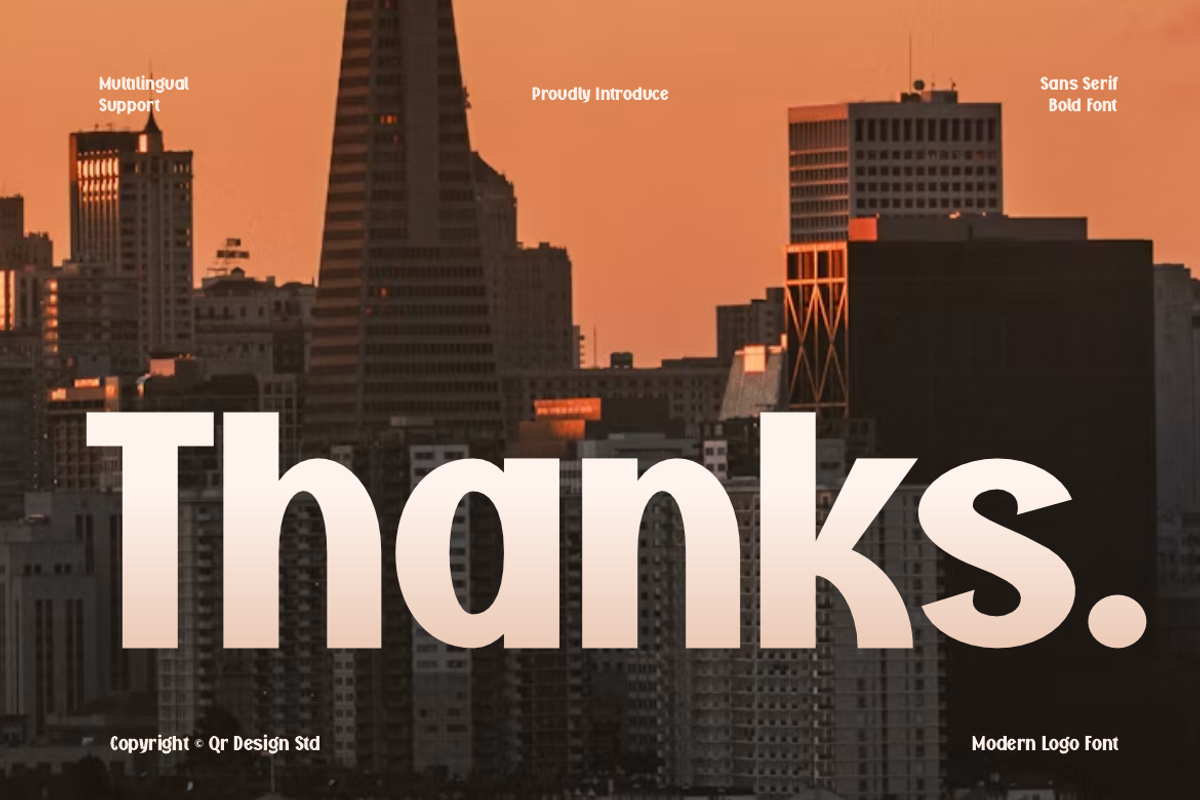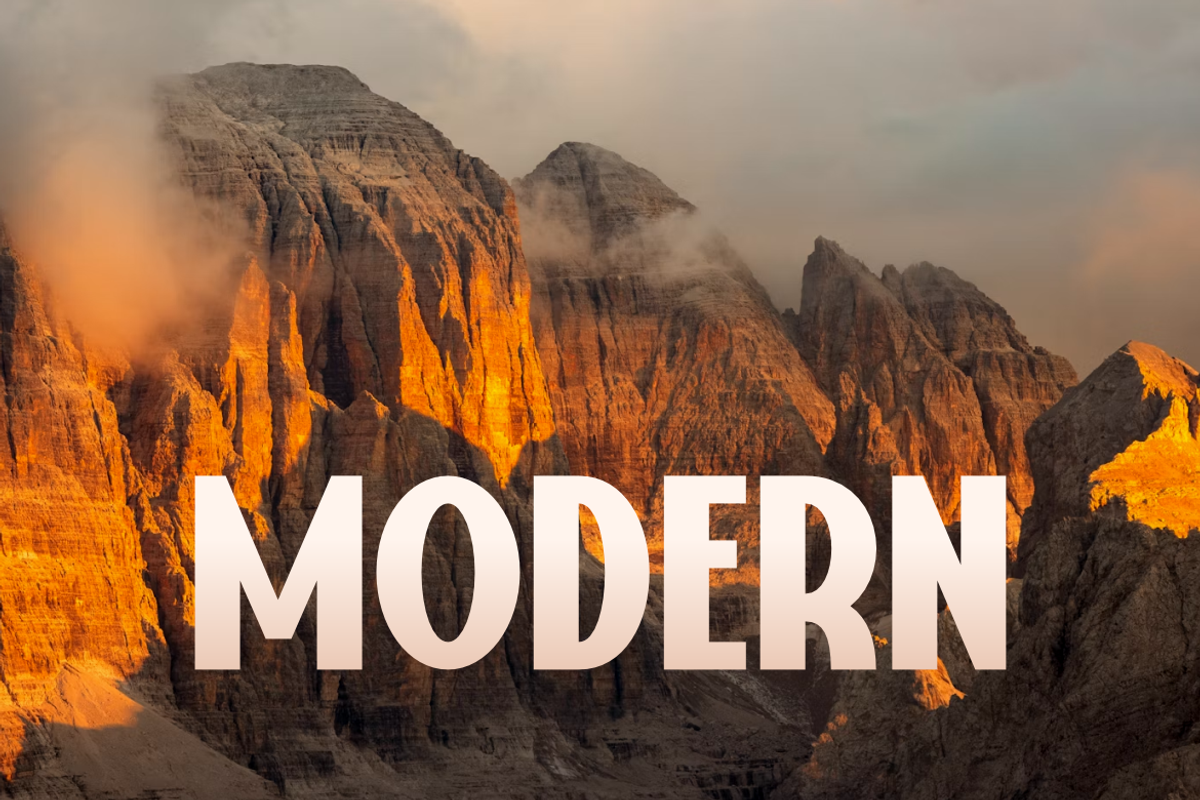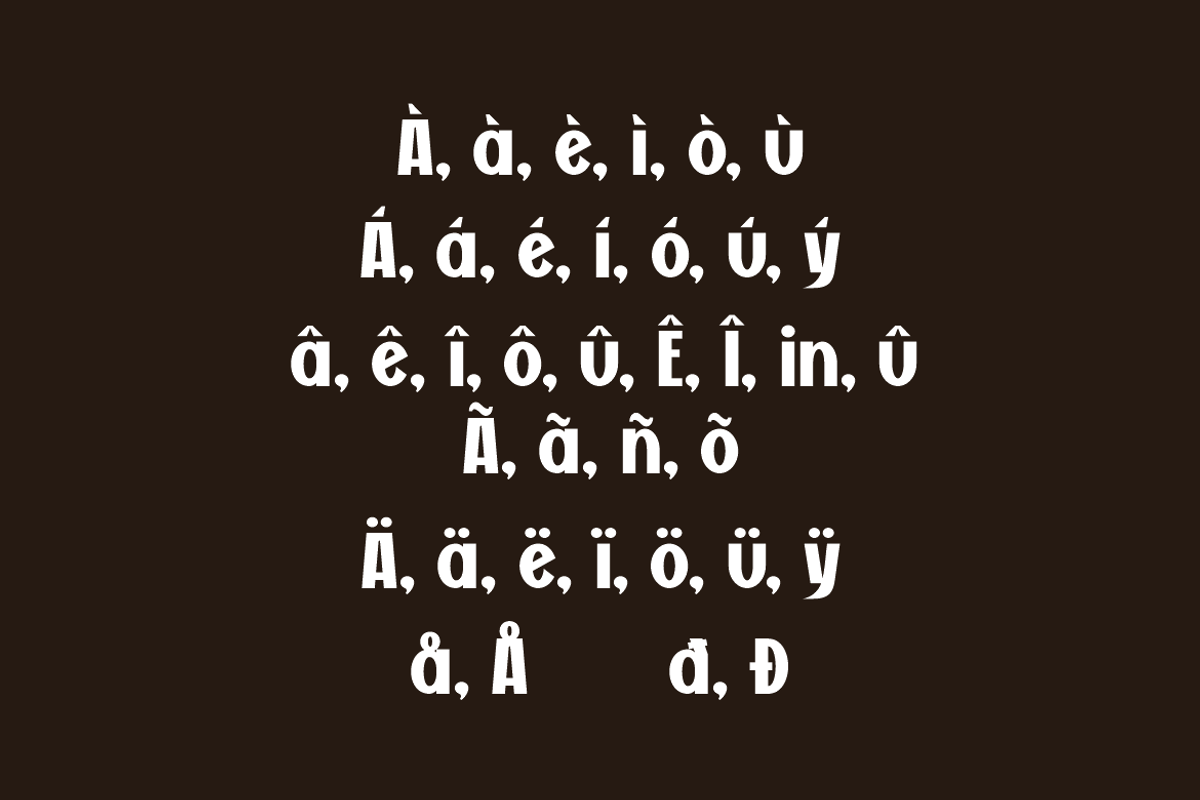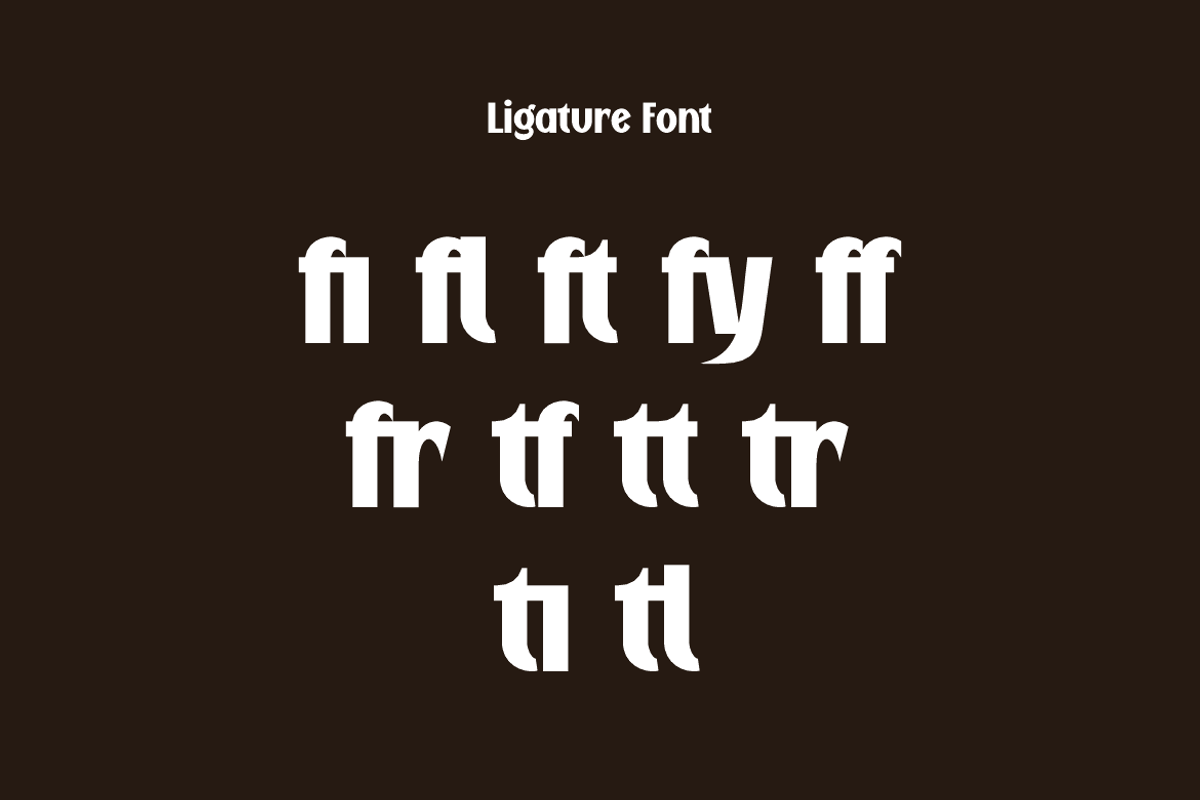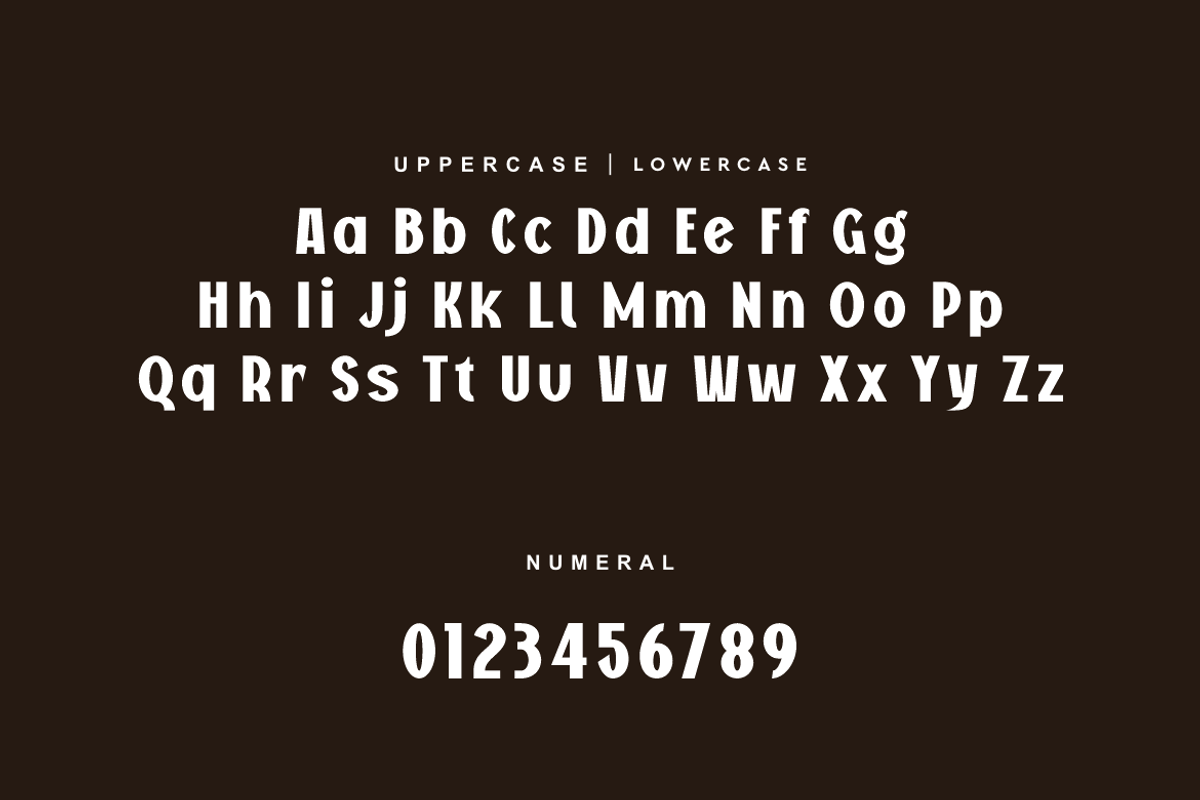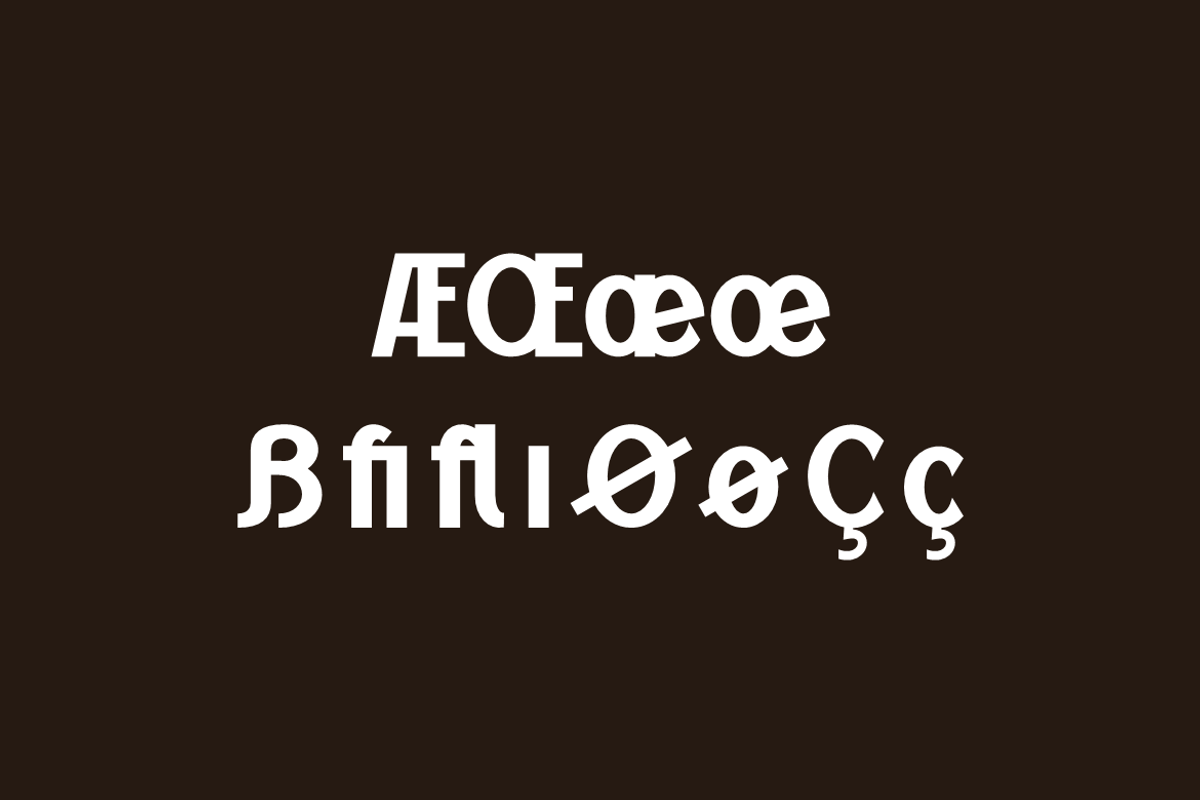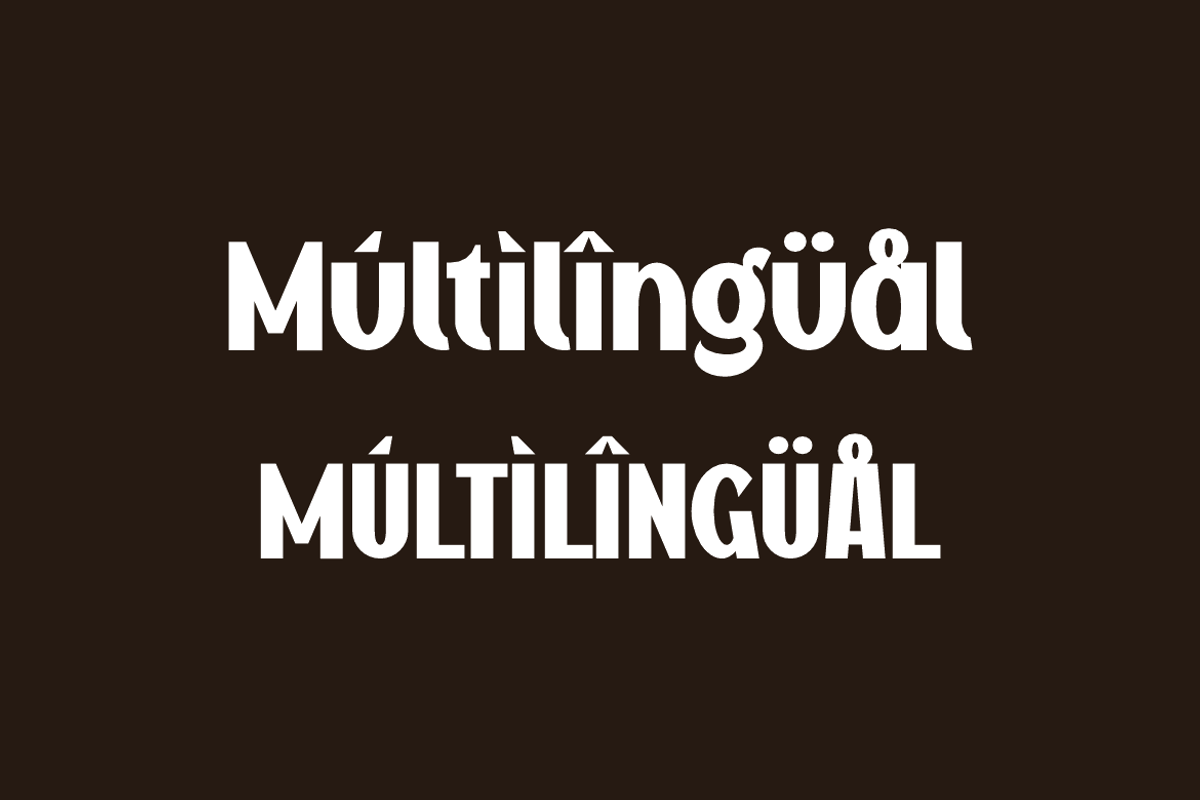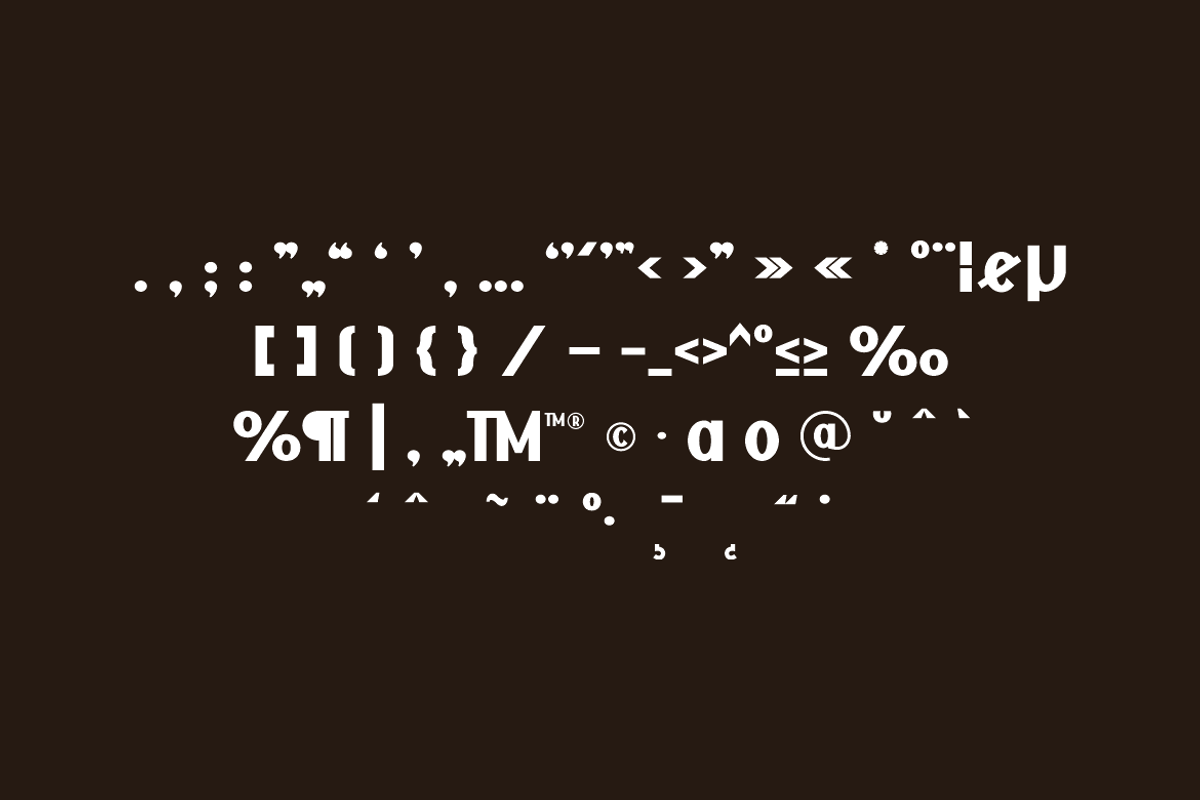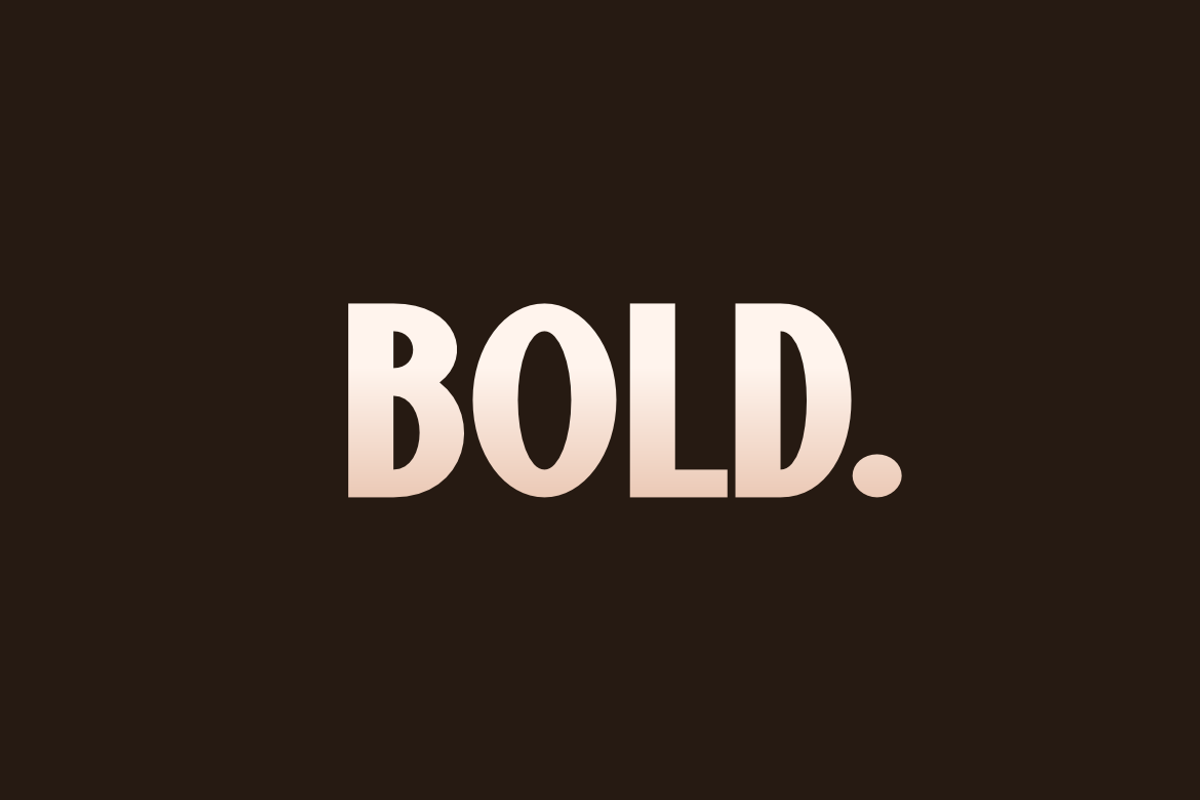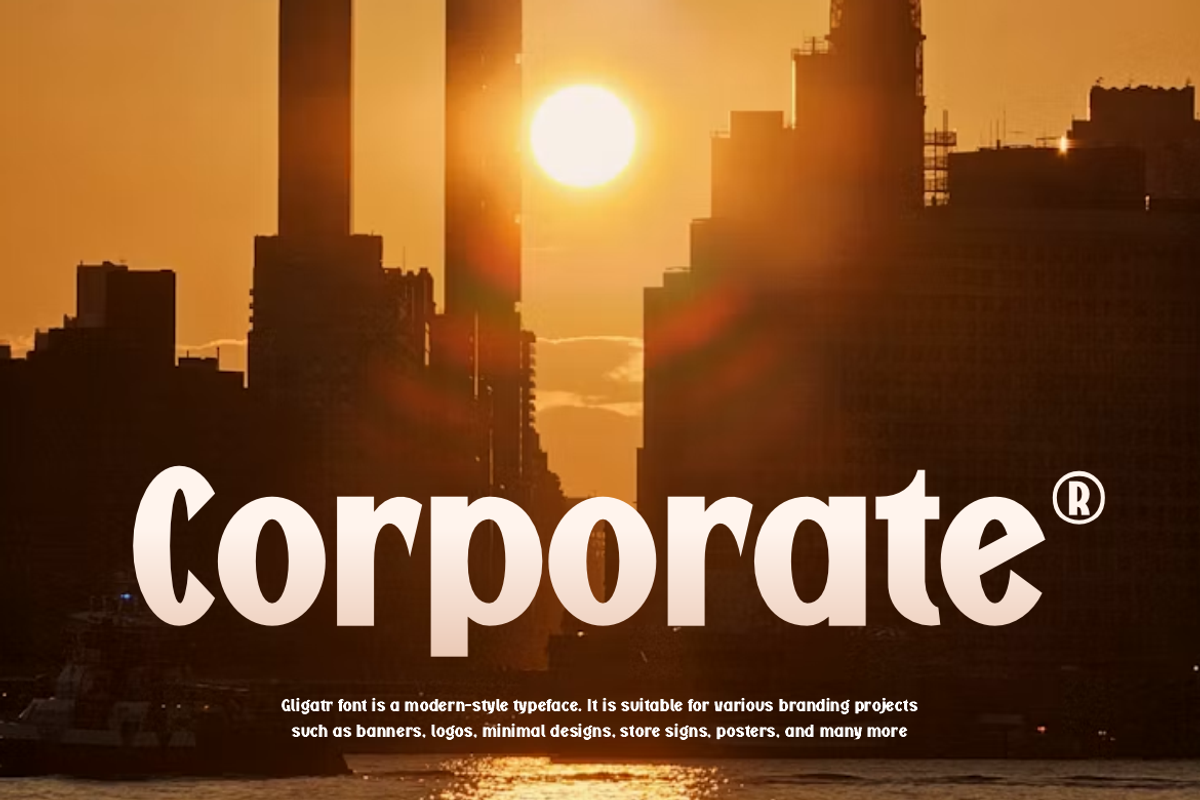
Gligatr - Modern Sans Bold Font
Gligatr Font is a modern and authentic display typeface.
It’s perfect for various branding projects such as logos, modern designs,
and more. This font stands out beautifully in a wide range of contexts.